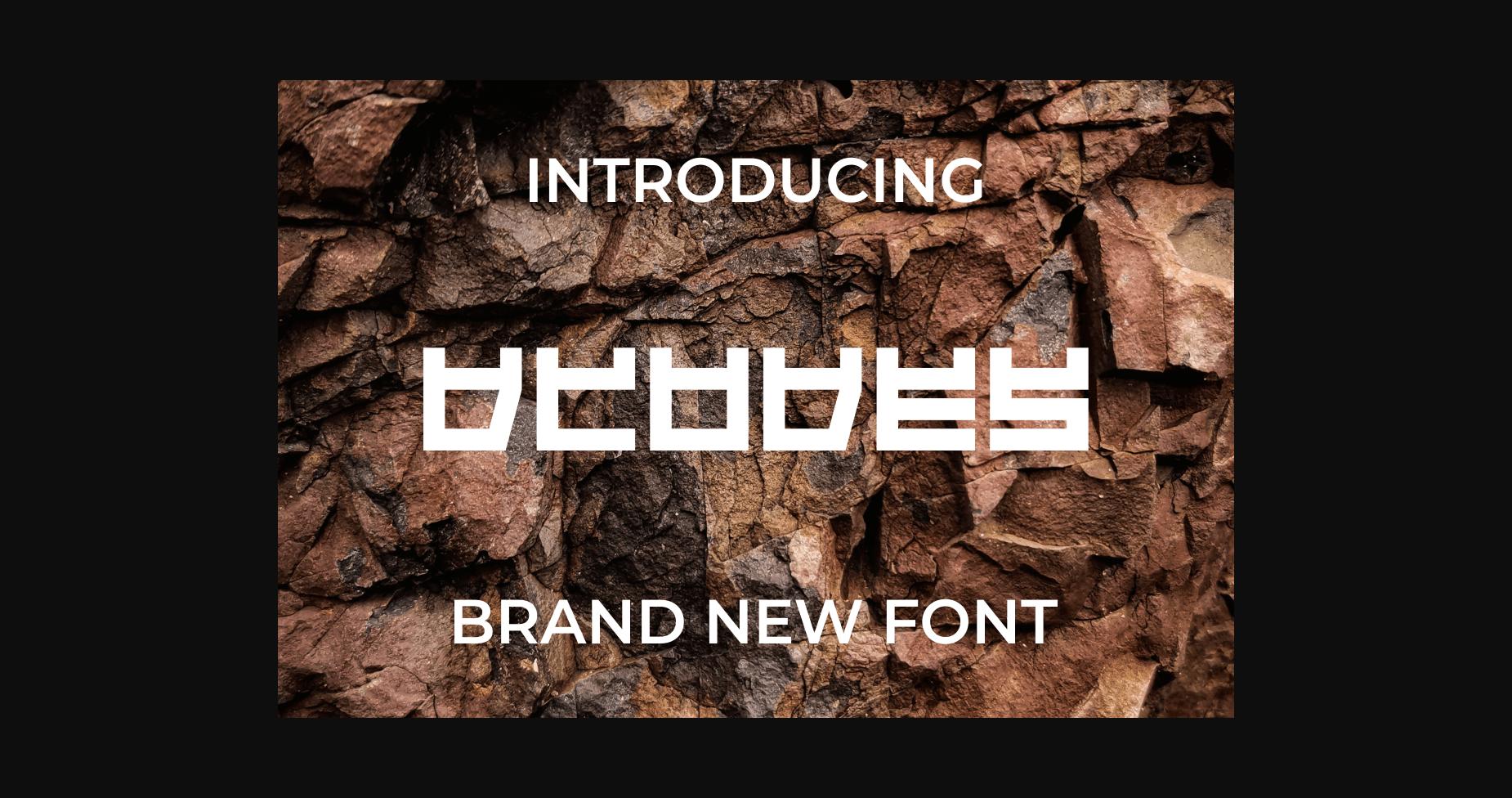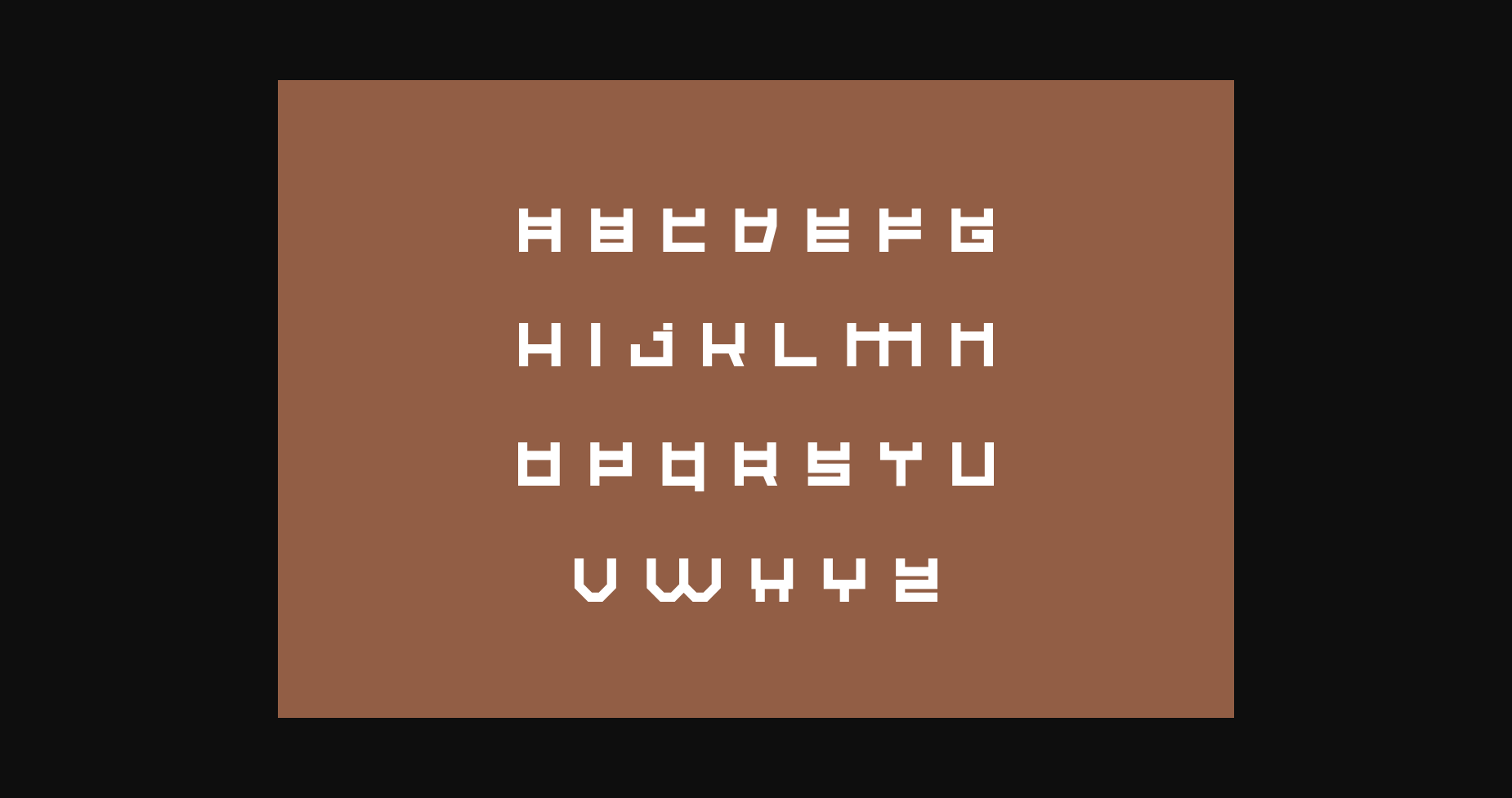
About Dcodes Font
DCODES is a modern bold and authentic display font. The font is suitable for any branding project like logo, t-shirt printing, e-sport, and many more. Outstanding in a wide range of contexts.